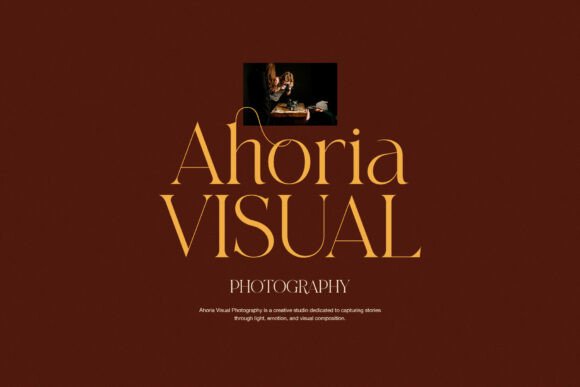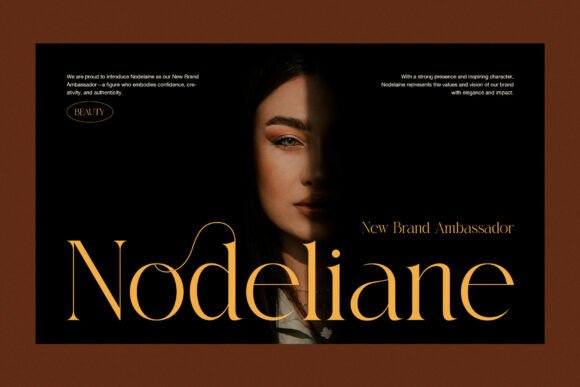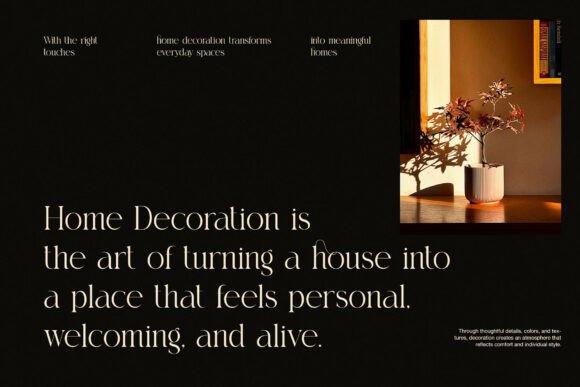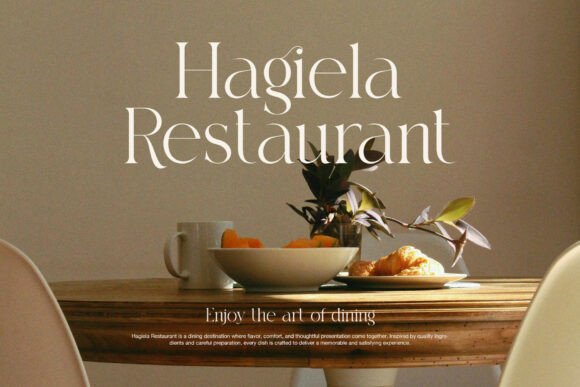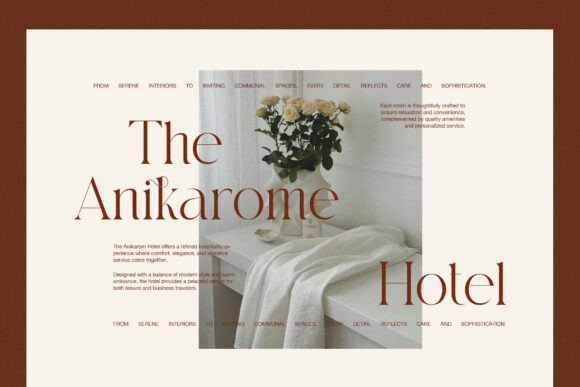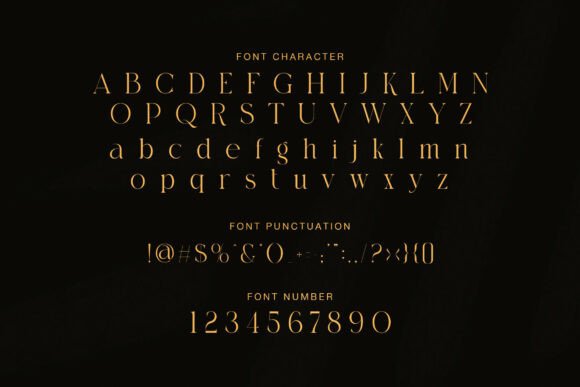
Introduction to Ramide Font
As a designer, you’ve probably experienced that moment when a single font can make or break a project. It’s the spark that sets your creative vision ablaze, elevating your design from good to great. For me, that moment came when I stumbled upon the elegant luxury serif font, Ramide Font. Its refined beauty and timeless charm left me breathless, and I knew I had to dive deeper into its world.
What makes Ramide Font so special is its unique blend of classic tradition and modern softness. This design resource is not just a pretty face – it’s a high-quality tool that delivers a premium look without sacrificing readability. Whether you’re working on a creative project or simply need a font that exudes sophistication, Ramide Font is an excellent choice. With its balanced proportions and smooth curves, it’s a versatile design element that can be used on a transparent background or as a standalone element.
Key Features of Ramide Font
- High-quality, professional design ideal for creative projects, including posters, flyers, and brochures.
- Unique, modern design aesthetic with a transparent background, allowing for easy customization and layering.
- Perfect for designers seeking a modern, stylish font for their creative projects.
Honest Review: Ramide Font
As a designer, I’m always on the lookout for high-quality design resources that can elevate my creative projects. The Ramide Font has been a recent discovery, and I’m excited to share my thoughts on it.
What works well: ✨ The Ramide Font has a beautiful, elegant design that’s perfect for corporate and modern projects. The font is highly versatile and can be used for a variety of purposes, from headings to body text. The transparent background makes it easy to layer over images and other design elements. The font is also highly legible, even at smaller sizes.
Some limitations: ⚠️ One thing to note is that the Ramide Font is a single-weight font, which may limit its use in certain projects where a range of weights is required. Additionally, the font may not be suitable for very large or complex projects due to its relatively small file size.
Overall impression: I’m thoroughly impressed with the Ramide Font. Its high-quality design, versatility, and ease of use make it a valuable addition to any designer’s toolkit. Whether you’re working on a small creative project or a large-scale design endeavor, the Ramide Font is definitely worth considering. And the best part? It’s available for free download, making it a fantastic resource for designers on a budget.
- Perfect for corporate and modern projects
- Highly versatile and legible
How to Use Ramide Font
The Ramide Font is a high-quality design resource that can elevate your creative project with its unique and elegant style. This font is available for free download and features a transparent background, making it versatile for various design applications.
Tips for Getting the Most Out of Ramide Font
To get the most out of the Ramide Font, use it in combination with other design elements to create a cohesive and visually appealing design. Experiment with different font sizes, colors, and arrangements to find the perfect balance for your project.
The Ramide Font is suitable for a wide range of creative projects, including business cards, brochures, and website headers. Its elegant style makes it perfect for formal and professional designs, while its transparent background makes it versatile for various design applications.